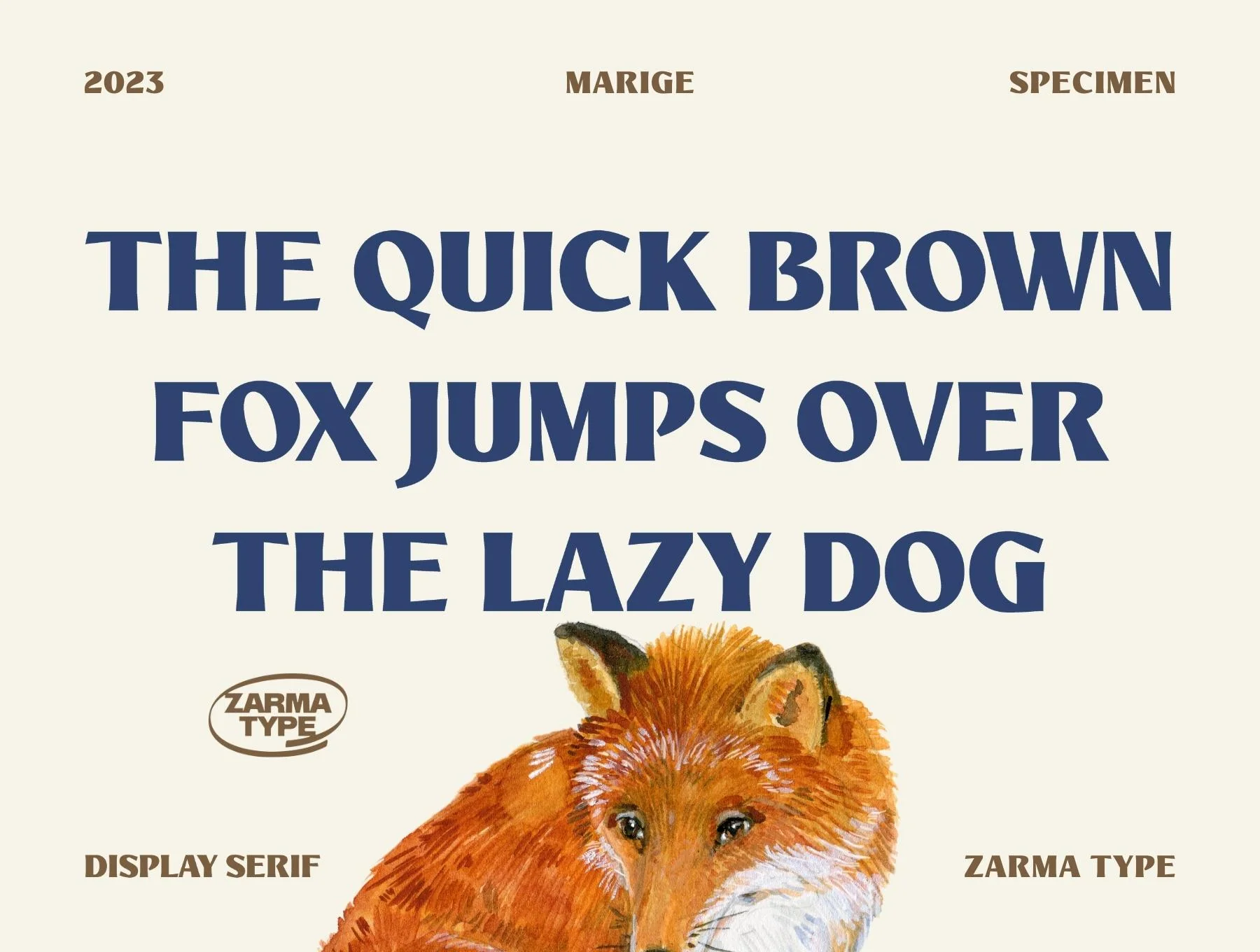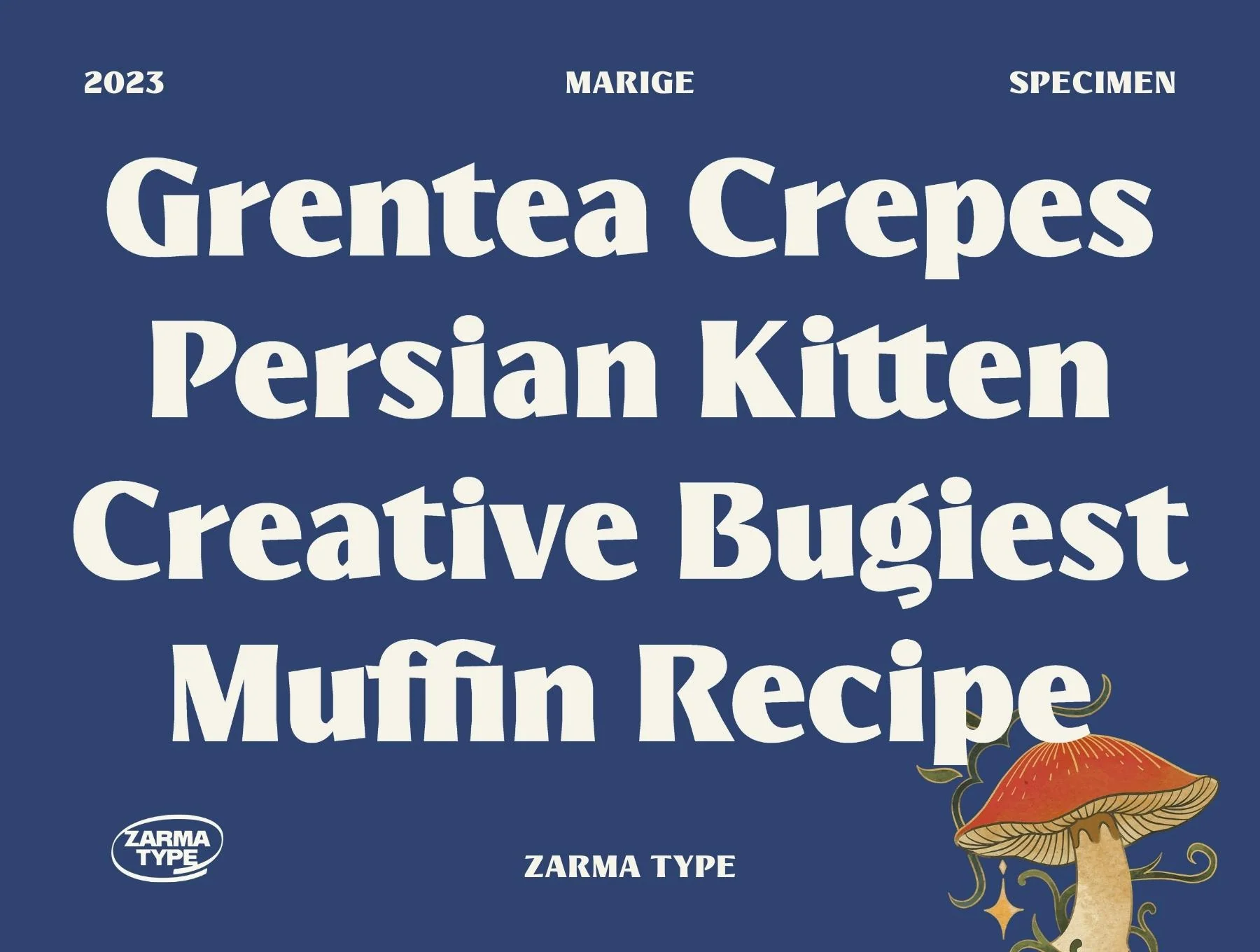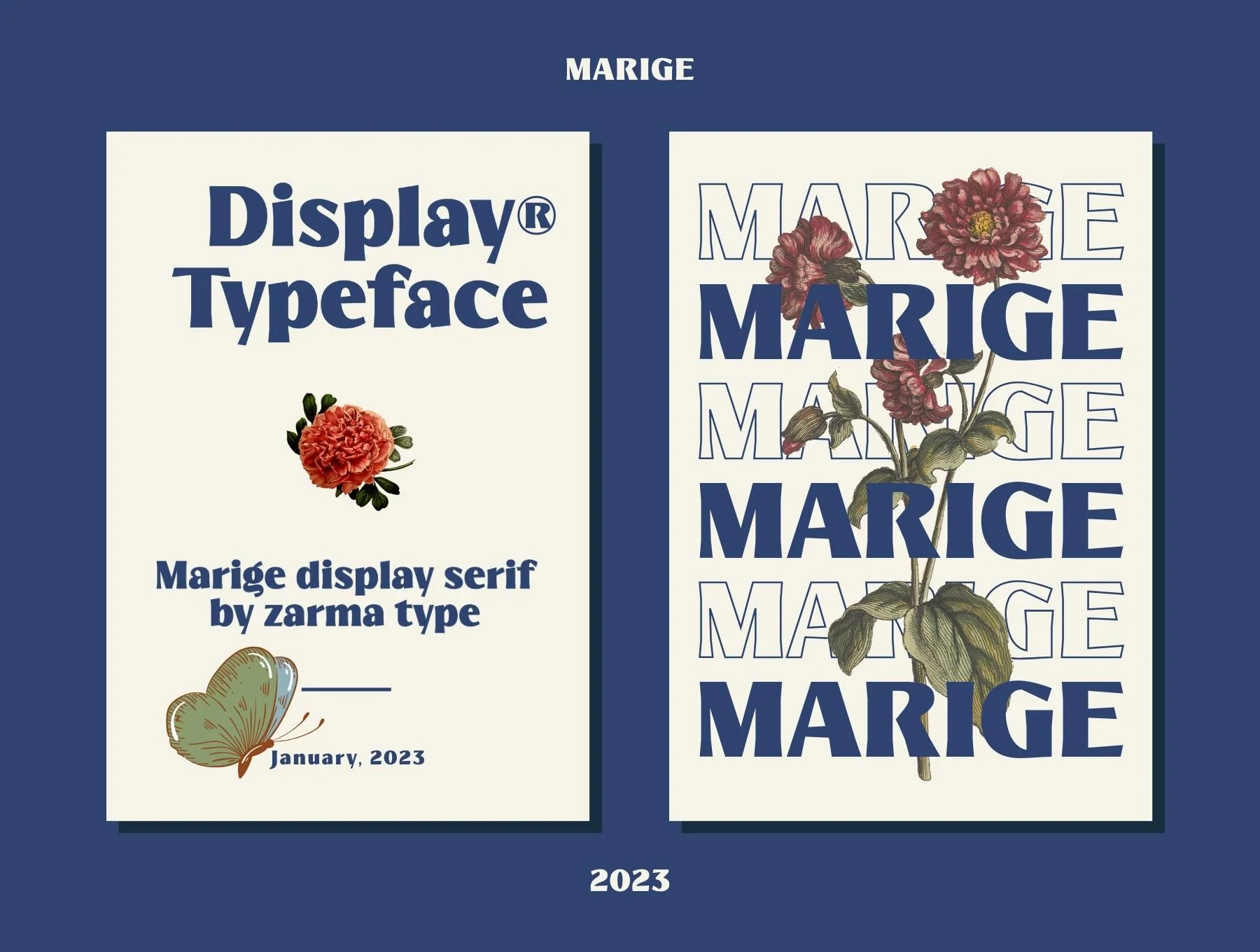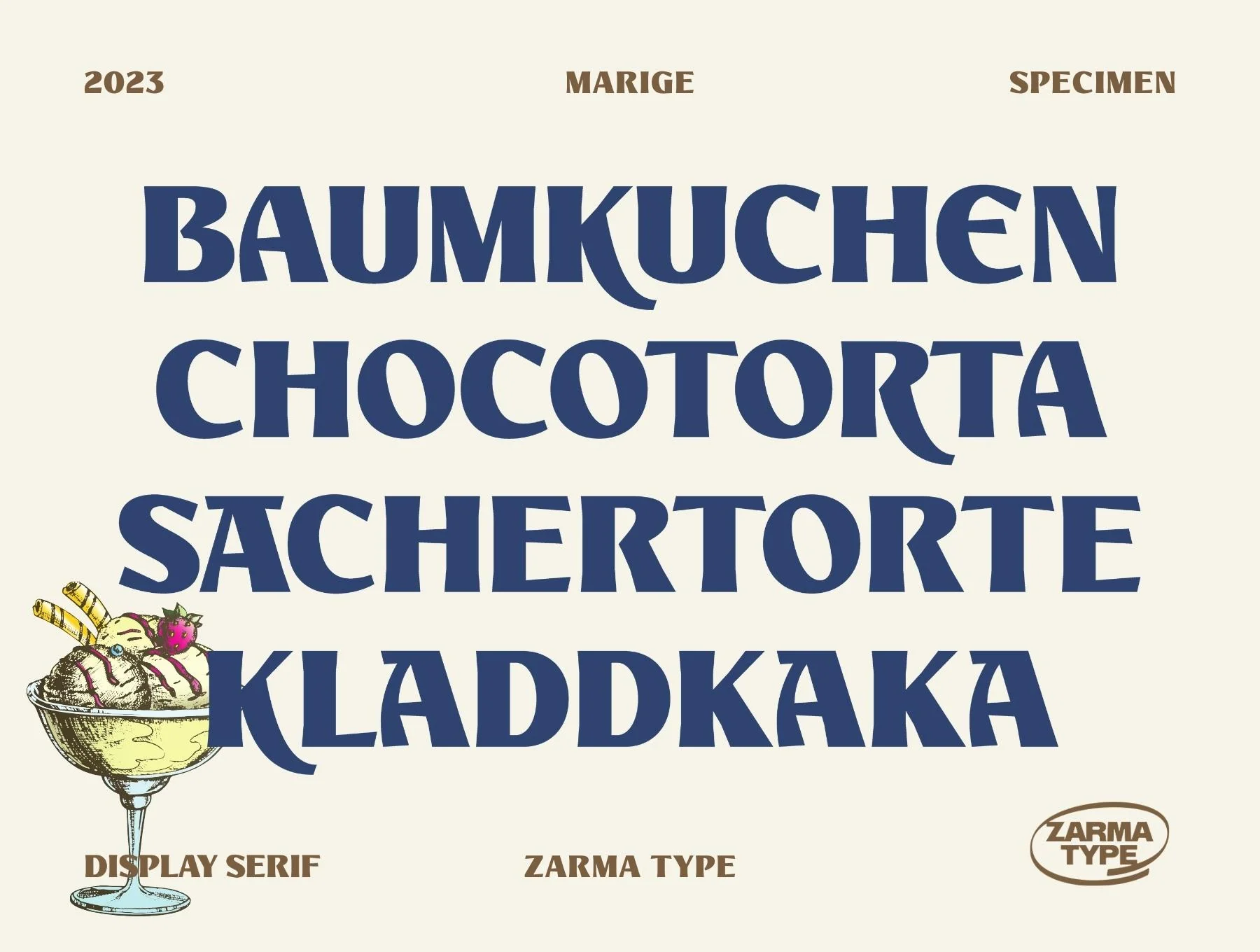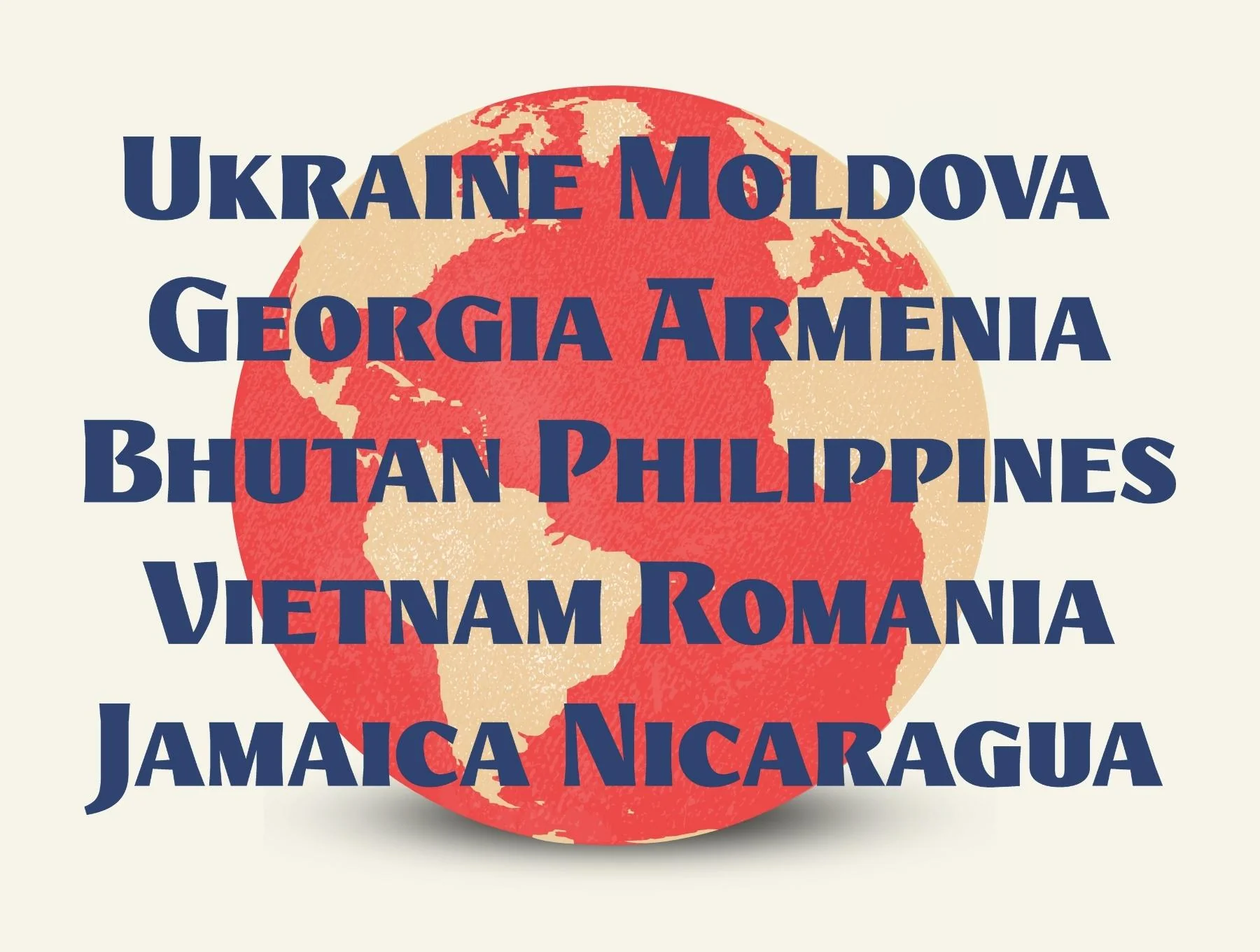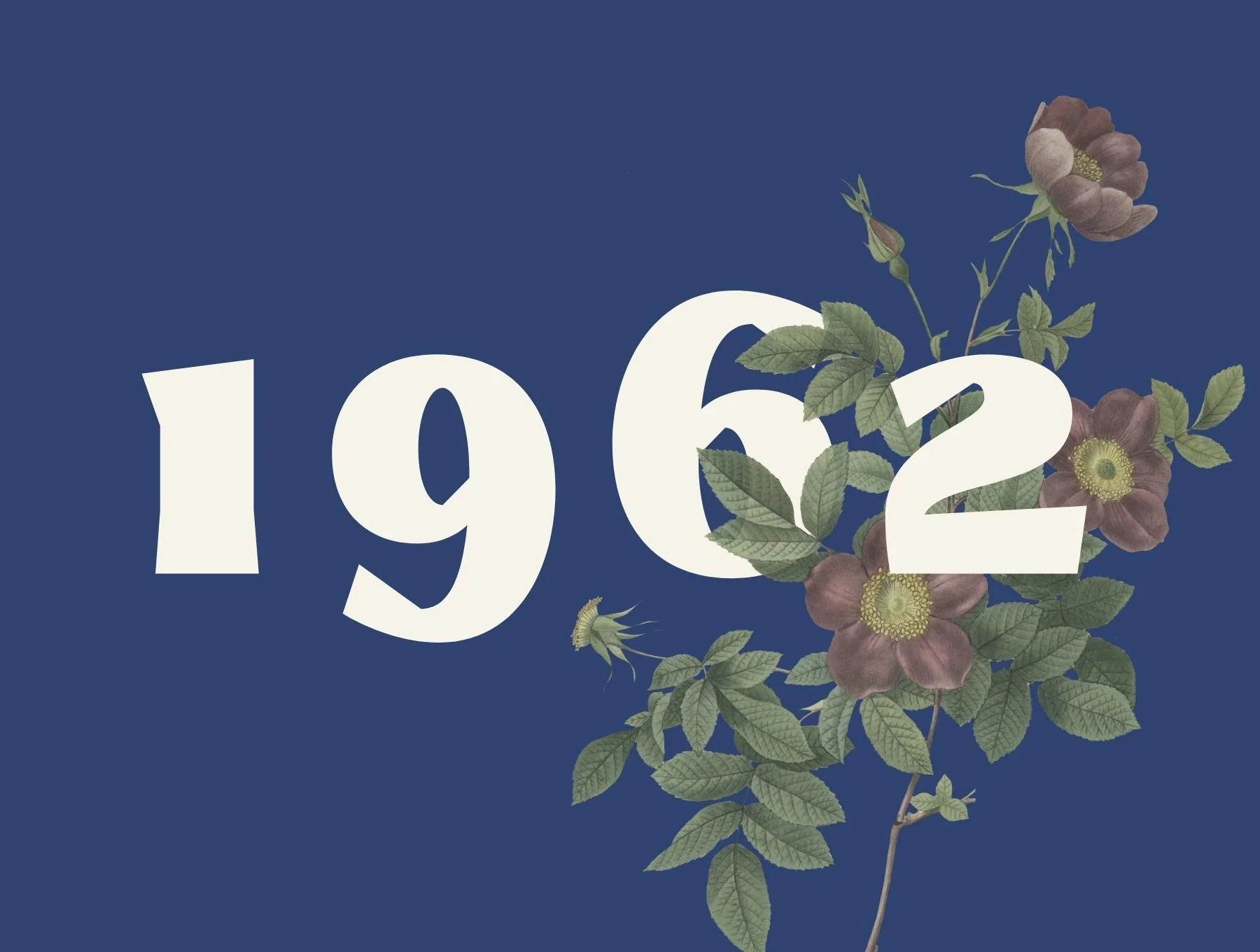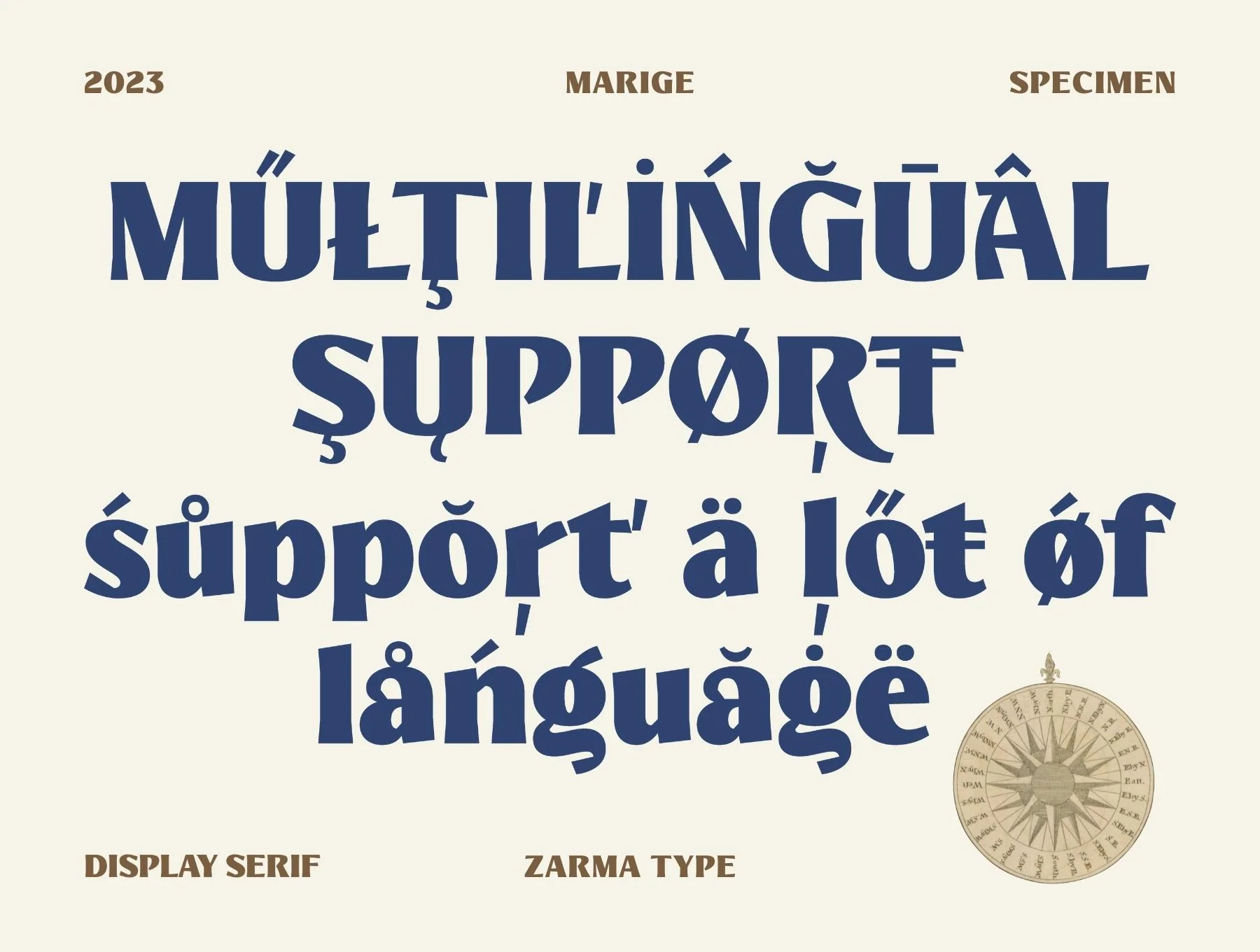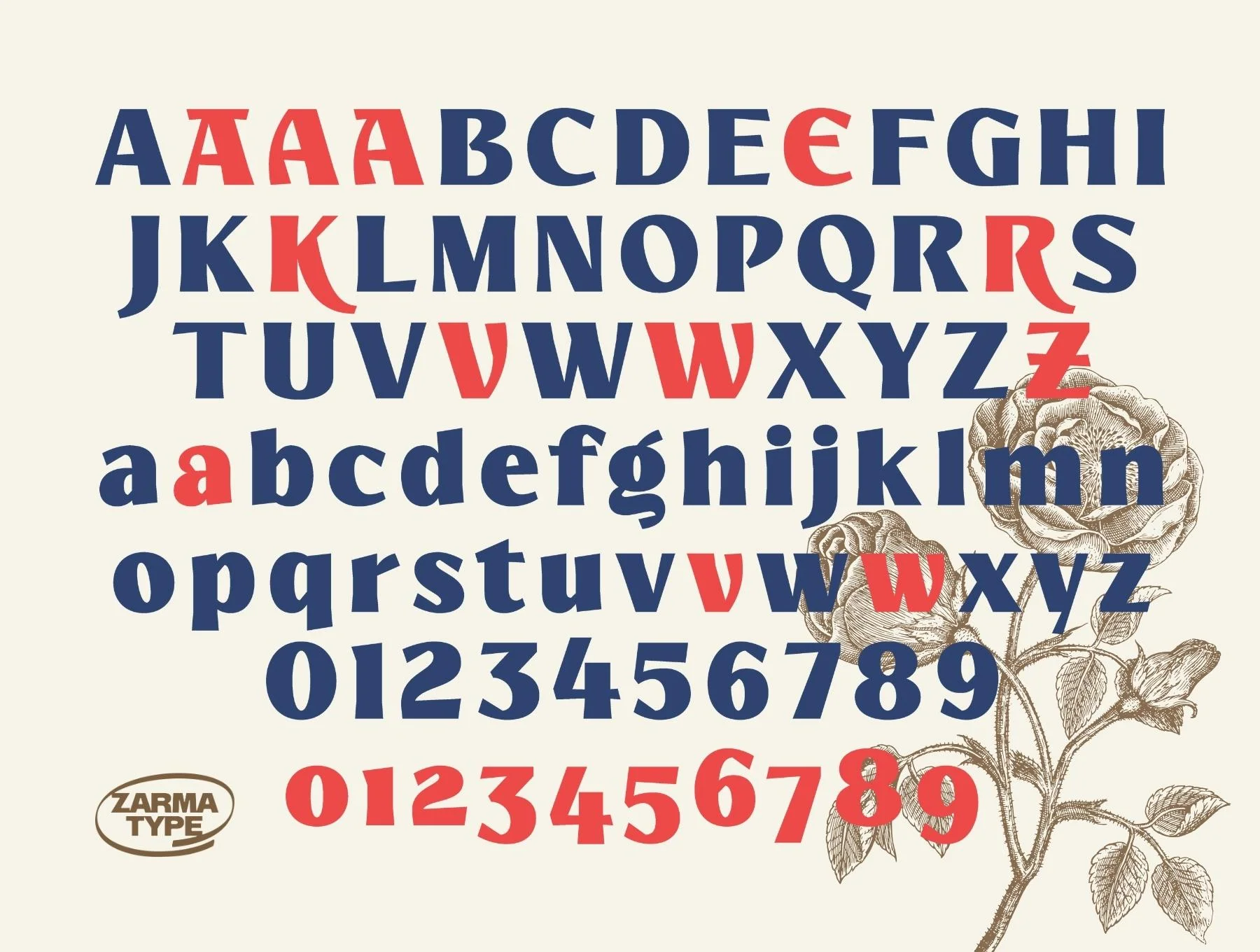
Marige Font
Striking Elegant Serif Font
Capital letters, small letters, numbers, and punctuation
Style variants plus ligature options
Marige is a striking modern typeface with flared serifs, clean forms, and a refined mix of retro character and current elegance. Featuring 550+ crafted glyphs plus OpenType options, it brings warmth and confidence to logos, headlines, and posters. Includes Marige. Alternates: Photoshop Window > Glyphs; Illustrator Type > Glyphs.